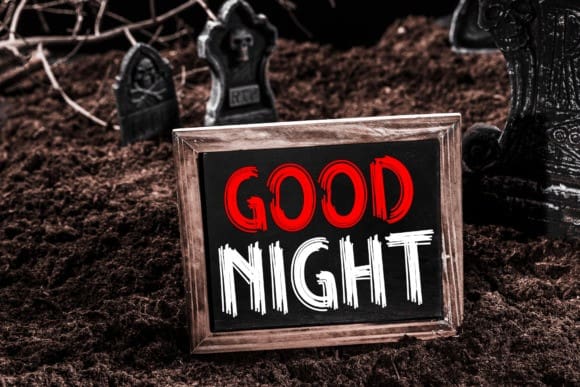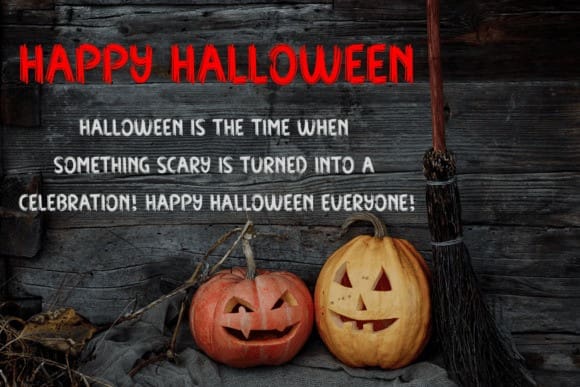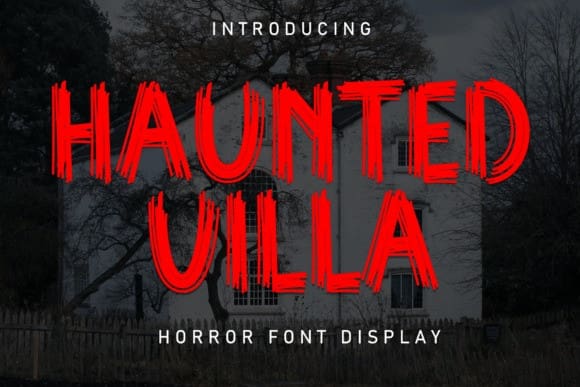
Haunted Villa Font
Haunted Villa Font: This font looks like the design element for bone-chilling projects such as haunted houses and Halloween midnight movies. This font is one that the ambiance of horror is available in every way this is used, invitations, postcards, posters, and headings for Halloween events.